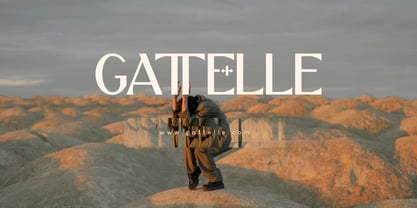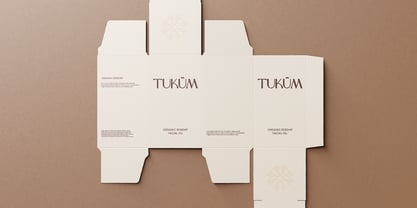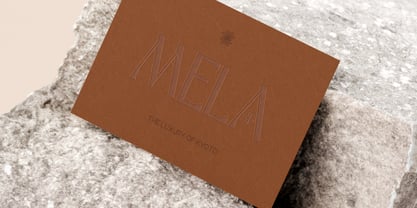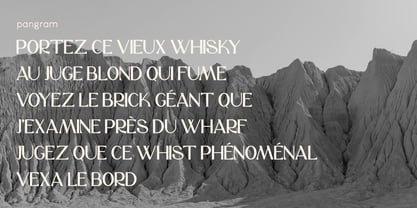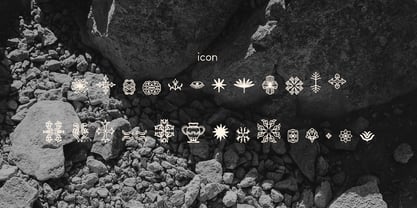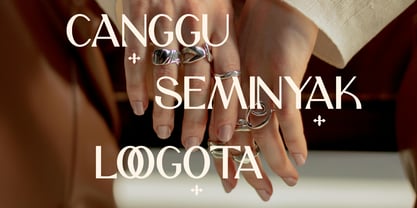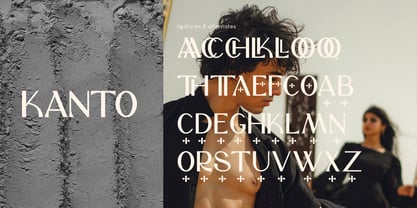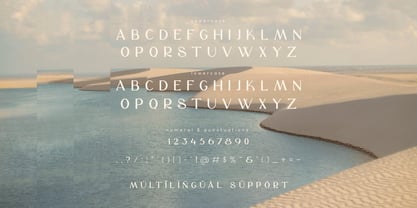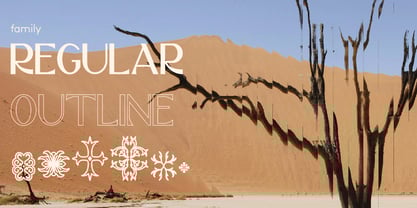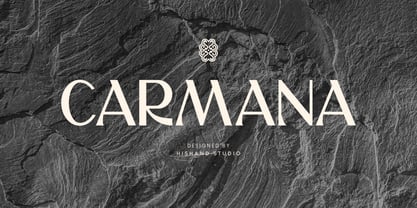
Carmana
by Hishand Studio
The Carmana Font Family was designed by Putu Dody Permana and published by Hishand Studio. Carmana contains 3 styles and family package options.
Carmana is a stylish, modern font with sharp angles, clean lines, and elegant curves. It combines classic sans-serif elements with contemporary geometric details, creating a refined and luxurious look.
Perfect for branding, editorial design, logos, and high-fashion projects, Carmana exudes sophistication and exclusivity. Its unique letterforms, subtle cut-out strokes, and smooth curves add a distinctive and elegant touch. Complete with
• ligatures
• alternates
• regular
• outline
• icon
• kerning
• multilingual support